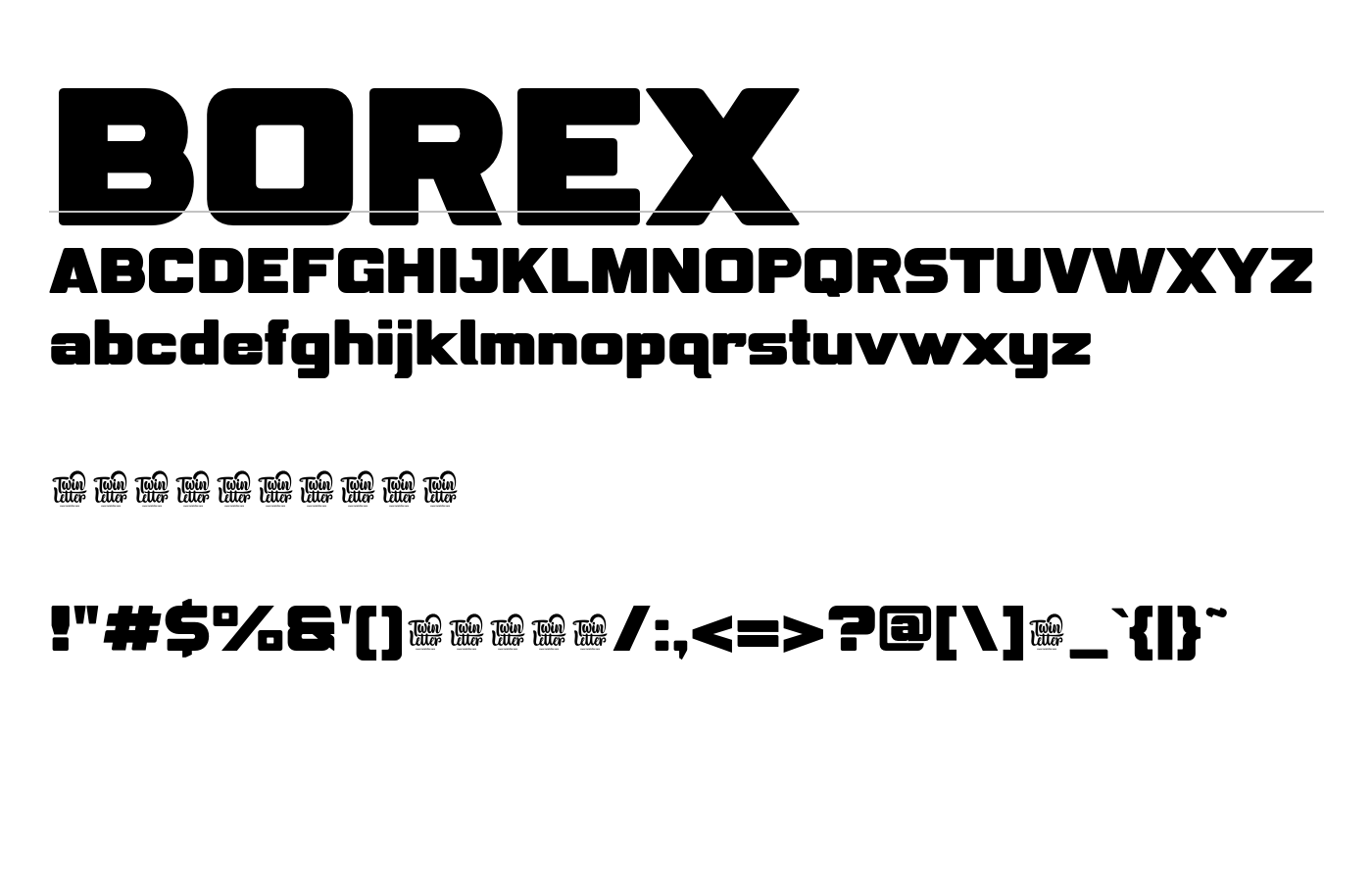
BOREX is a bold, geometric sans serif font with a strong, compact presence and high x-height that makes it highly legible. Its thick, blocky letterforms and slightly rounded corners give it a sturdy yet approachable feel, ideal for impactful headlines, branding, and display use where a modern and confident tone is desired. This font works best in logos, posters, and packaging that call for bold statement typography with a contemporary edge.
BOREX Font
About BOREX Font